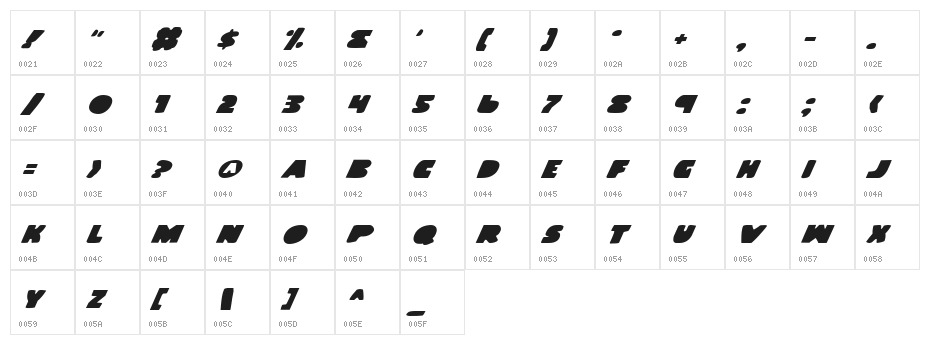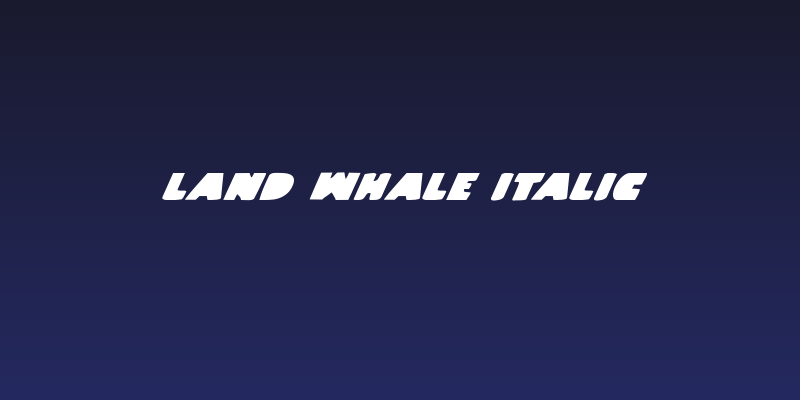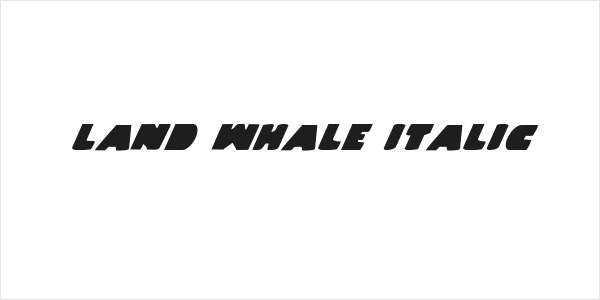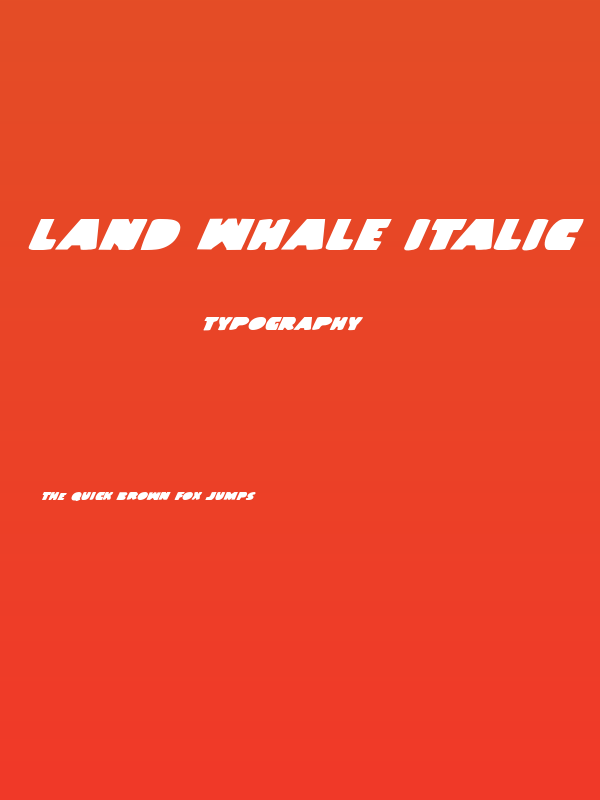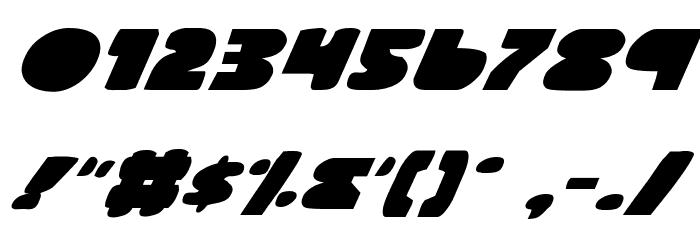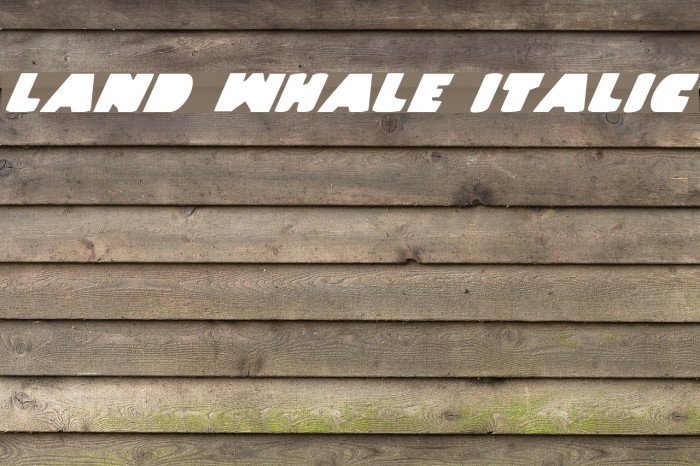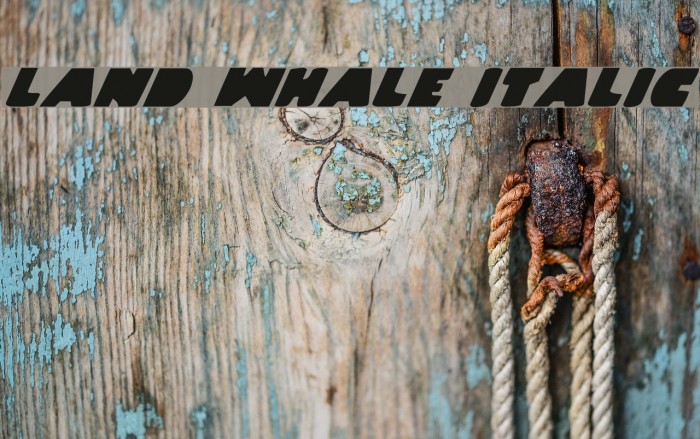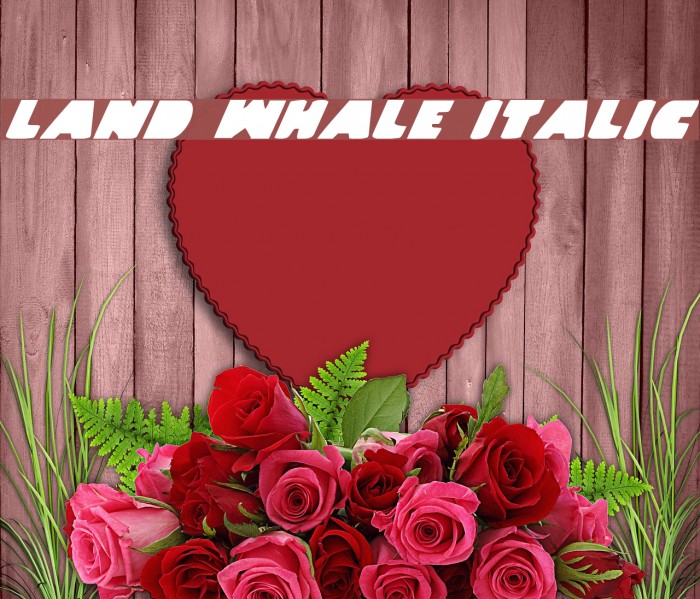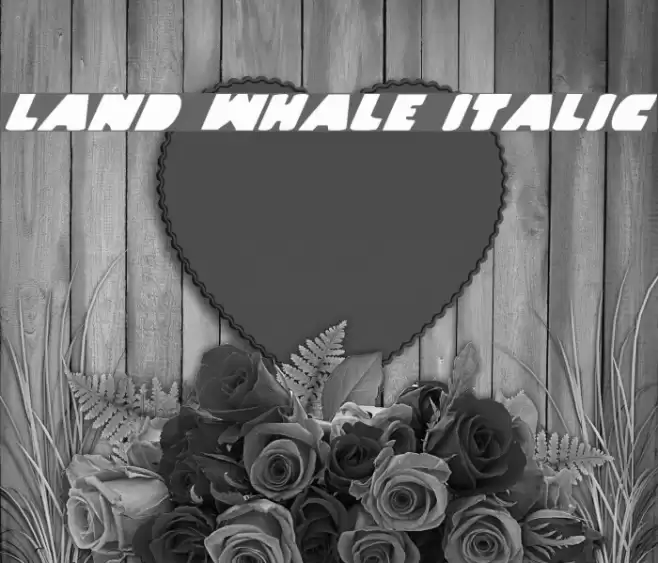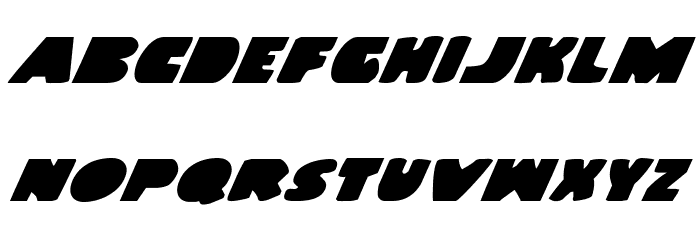
Land Whale Italic Font
Land Whale Italic Description
This font features a bold, italicized style with a strong presence. The characters are thick and heavy, giving a sense of weight and solidity. The italic slant adds a dynamic and forward-moving feel, making it suitable for attention-grabbing headlines or impactful designs. The letters are closely spaced, enhancing the compact and robust appearance. The numbers and special characters maintain the same bold and italicized characteristics, ensuring consistency across all elements.